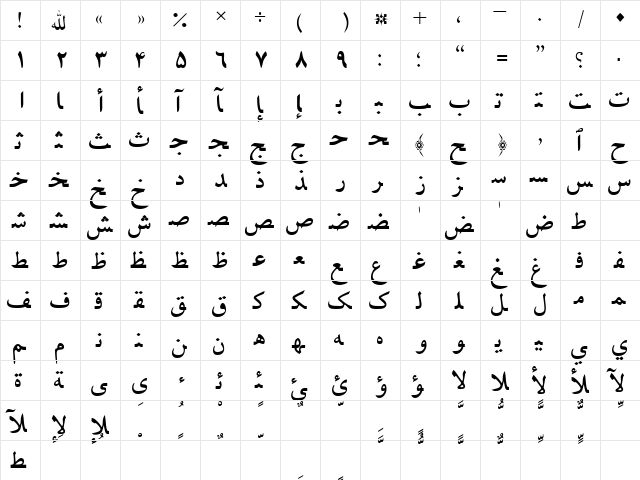
PersianLotosSSK Regular
Design Context for PersianLotosSSK Typeface
PersianLotosSSK takes a measured approach to typography — its balanced proportions and neutral character make it a reliable workhorse for both digital and print work.